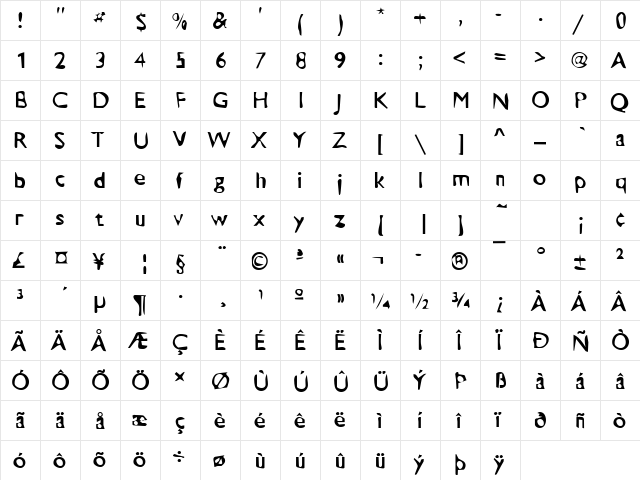
Dirty23 Becker Regular
Design Context for Dirty23 Becker Typeface
Dirty23 Becker is a composed and adaptable typeface that performs quietly and consistently across a wide range of design contexts.
Pro Tip: Use Dirty23 Becker in both headline and body roles to test its range before committing to a single application.